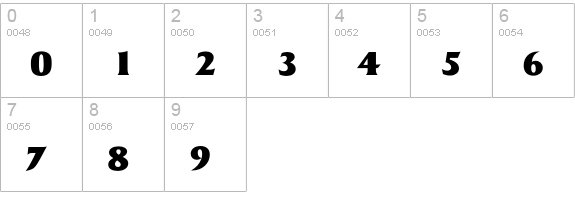
Sydney-Heavy is a heavy, high-impact variant in the Sydney typeface family \xE2\x80\x94 well suited to high-impact headlines, posters, and display advertising.
Sydney-Heavy is a bold and impactful font that commands attention with its strong and sturdy letterforms. Perfect for headlines, titles, and branding projects, this font exudes confidence and power. With its thick strokes and sharp edges, Sydney-Heavy makes a bold statement while remaining highly legible. The best part? Sydney-Heavy is completely free to download at FontsMarket.com. This means you can elevate your designs with this striking font without any cost involved. Don't miss out on this opportunity to add a touch of boldness to your projects with Sydney-Heavy. Download it now and make your text stand out like never before!